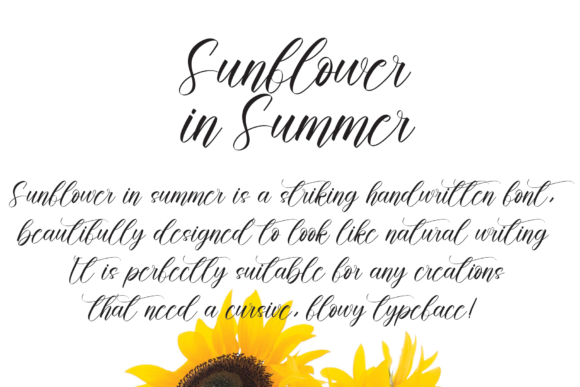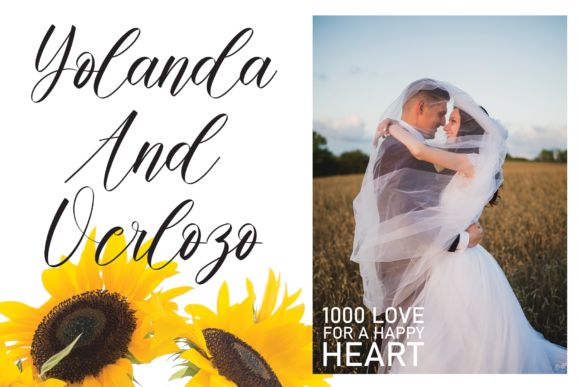
About Sunflower in Summer Font
Sunflower in summer is a striking handwritten font, beautifully designed to look like natural writing. It is perfectly suitable for any creations that need a cursive, flowy typeface!